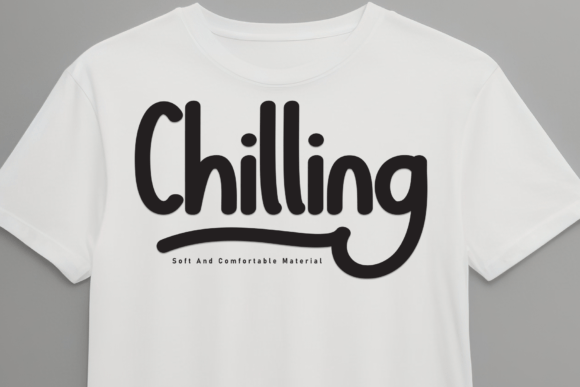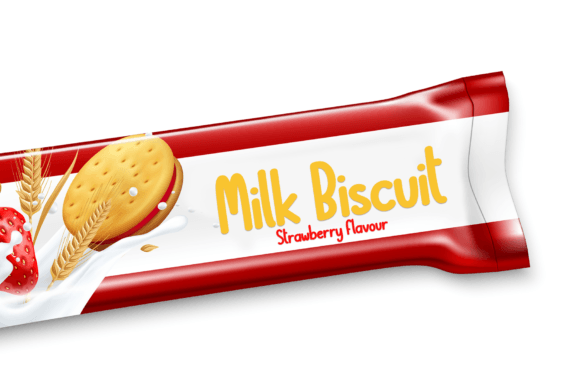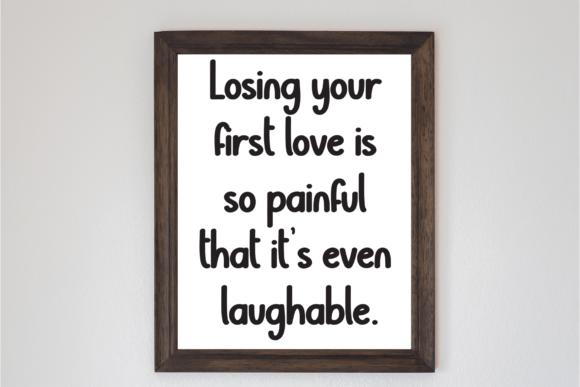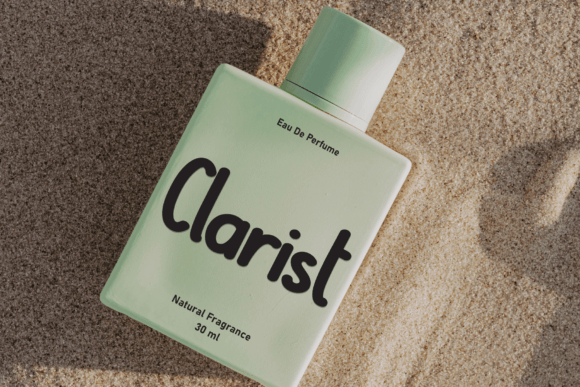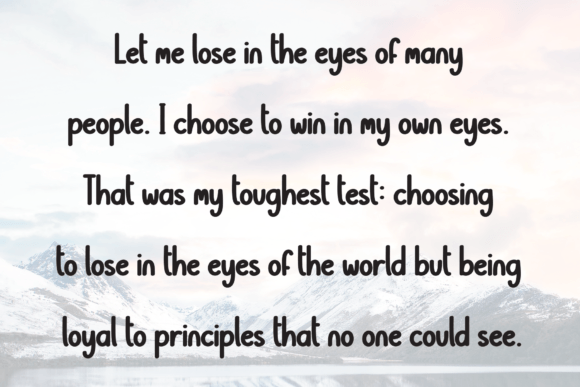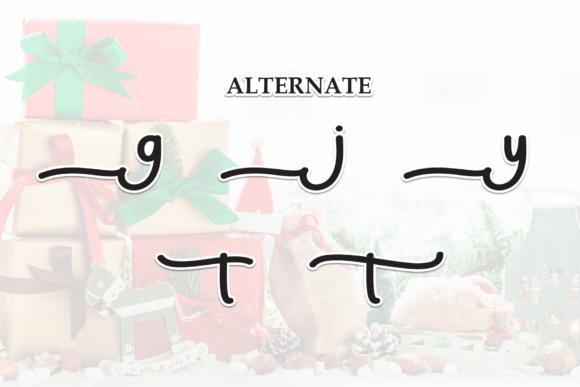
Introducing Christmas Charity Font: A Sweet and Friendly Handwritten Delight
Are you looking for a font that embodies the spirit of the holiday season? Do you want to add a personal touch to your designs, crafts, and projects? Look no further than the Christmas Charity Font, a sweet and friendly handwritten font that’s perfect for a wide range of creative endeavors. In this article, we’ll dive into the world of Christmas Charity Font, exploring its unique features, uses, and benefits for designers and crafters alike.
A Font that Captures the Essence of the Holiday Season
Christmas Charity Font is a beautiful, handwritten font that’s infused with the warmth and joy of the holiday season. Its natural and unique style makes it incredibly versatile, allowing you to use it in a variety of designs, from festive holiday cards and decorations to branding, packaging, and digital media. Whether you’re a designer, crafter, or DIY enthusiast, this font is sure to inspire your creativity and add a personal touch to your projects.
What Makes Christmas Charity Font So Special?
So, what sets Christmas Charity Font apart from other fonts? Here are just a few of its standout features:
- Handwritten charm: Christmas Charity Font is a genuine handwritten font, crafted with love and care to capture the imperfections and quirks of human handwriting.
- Unique style: This font boasts a distinctive, one-of-a-kind style that’s both sweet and friendly, making it perfect for projects that require a personal touch.
- Natural look: The font’s natural, organic look makes it blend seamlessly with a wide range of design styles, from rustic and vintage to modern and digital.
- Highly versatile: Christmas Charity Font can be used in a multitude of projects, including holiday cards, decorations, branding, packaging, and digital media.
Uses for Christmas Charity Font
The possibilities are endless when it comes to using Christmas Charity Font. Here are just a few ideas to get you started:
- Holiday cards and invitations: Add a personal touch to your holiday cards, invitations, and gift tags with this beautiful font.
- Decorations and signage: Use Christmas Charity Font to create festive decorations, such as garlands, banners, and signs, that will add a warm and welcoming touch to your holiday decor.
- Branding and packaging: Give your brand a festive makeover with this font, perfect for holiday-themed packaging, labels, and marketing materials.
- Digital media: Use Christmas Charity Font in your digital projects, such as social media graphics, blog posts, and email newsletters, to add a touch of holiday cheer.
Christmas Charity Font offers a range of benefits for designers and crafters, including:
- High-quality design: Christmas Charity Font is designed to the highest standards, ensuring a crisp and clear appearance in all your projects.
- Time-saving: With this font, you can create professional-looking projects in no time, saving you time and effort.
- Inspires creativity: The unique style and charm of Christmas Charity Font are sure to inspire your creativity and help you come up with fresh ideas for your projects.